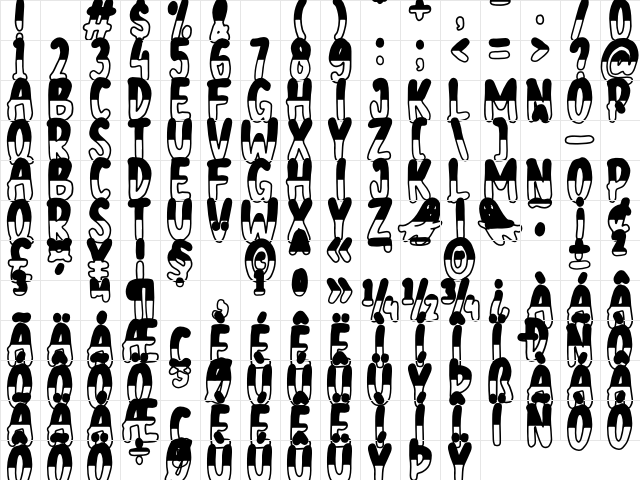
halloween semi black Regular
Design Context for halloween semi black Typeface
halloween semi black is a composed and adaptable typeface that performs quietly and consistently across a wide range of design contexts.
Pro Tip: Use halloween semi black in both headline and body roles to test its range before committing to a single application.